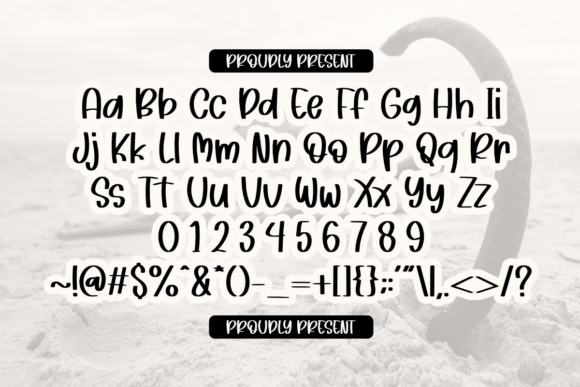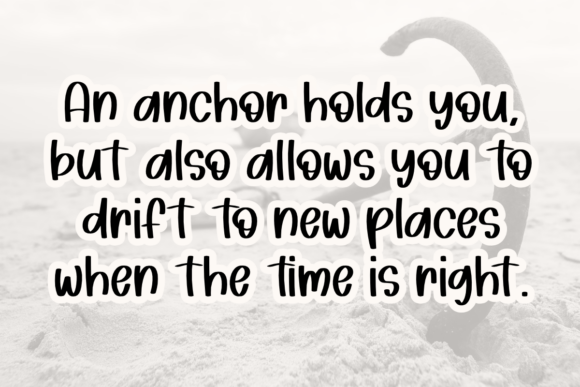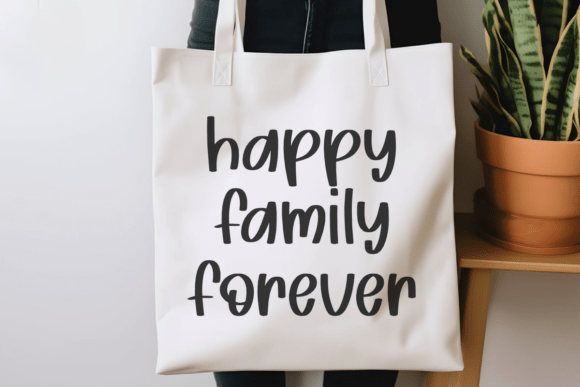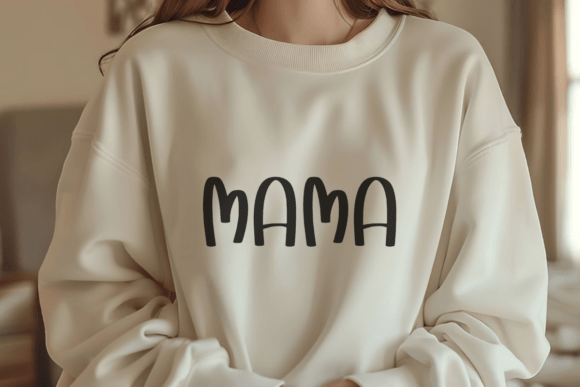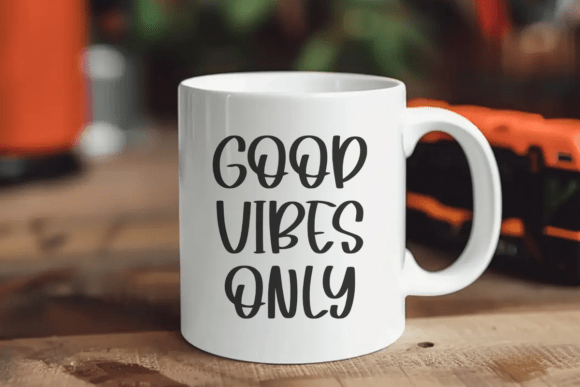
Discover the Charm of Anchor Font: A Minimalist Sans Serif for Creative Designs
Are you on the hunt for a font that embodies simplicity, elegance, and a touch of playfulness? Look no further than Anchor Font, a cute and minimalist sans serif font that’s perfect for a wide range of creative projects. In this article, we’ll dive into the world of Anchor Font, exploring its features, uses, and benefits for designers and crafters alike.
What is Anchor Font?
Anchor Font is a modern sans serif font that’s designed to be both visually appealing and highly versatile. Its clean lines, simple shapes, and balanced proportions make it an excellent choice for a variety of applications, from digital designs to print materials.
Key Features of Anchor Font
- Minimalist design: Anchor Font boasts a sleek and minimalist aesthetic that’s perfect for creating modern, sophisticated designs.
- Cute and playful: Despite its minimalist approach, Anchor Font has a charming, playful quality that adds a touch of whimsy to any design.
- Sans serif: The font’s sans serif design ensures that it’s highly legible, even at small sizes.
- Highly versatile: Anchor Font can be used for a wide range of projects, from greeting cards and wedding invitations to gift labels, mugs, t-shirts, and more.
Uses for Anchor Font
Anchor Font is an incredibly versatile font that can be used for a wide range of creative projects. Here are some ideas to get you started:
- Greeting cards: Create beautiful, heartfelt greeting cards for special occasions like birthdays, holidays, and anniversaries.
- Wedding invitations: Use Anchor Font to create stunning wedding invitations, save-the-date cards, and other wedding stationery.
- Gift labels: Add a personal touch to gifts with custom labels featuring Anchor Font.
- Mugs and t-shirts: Create eye-catching designs for mugs, t-shirts, and other apparel using Anchor Font.
- Quotes and posters: Use Anchor Font to create inspiring quotes, posters, and other visual content.
Anchor Font offers a range of benefits for designers and crafters, including:
- Ease of use: Anchor Font is incredibly easy to use, even for those with limited design experience.
- High-quality designs: With Anchor Font, you can create high-quality designs that look professional and polished.
- Flexibility: Anchor Font can be used for a wide range of projects, making it a great addition to any design toolkit.
- Inspiration: Anchor Font’s playful, charming design can help inspire your creativity and take your designs to the next level.
Tips for Using Anchor Font
Here are some tips for getting the most out of Anchor Font:
- Experiment with sizes and colors: Don’t be afraid to experiment with different sizes and colors to find the perfect combination for your design.
- Pair with other fonts: Anchor Font pairs well with other fonts, so feel free to get creative and try out different combinations.
- Add graphics and illustrations: Anchor Font works beautifully with graphics and illustrations, so consider adding these elements to your design.
Anchor Font is a versatile, charming font that’s perfect for designers and crafters looking to create beautiful, modern designs. With its minimalist aesthetic, playful quality, and high legibility, Anchor Font is an excellent choice for a wide range of creative projects. Whether you’re creating greeting cards, wedding invitations, gift labels, or more, Anchor Font is sure to become a go-to font in your design toolkit.